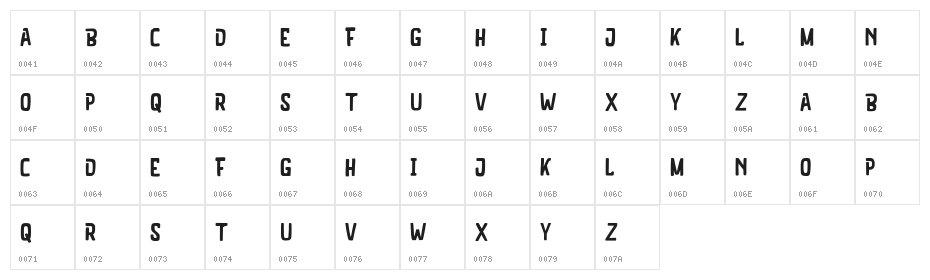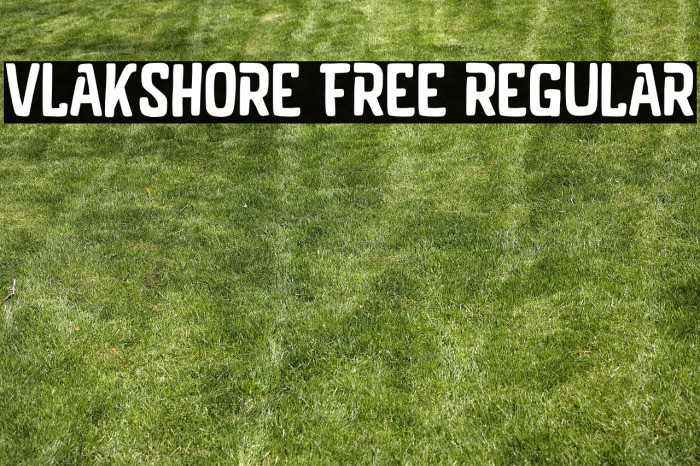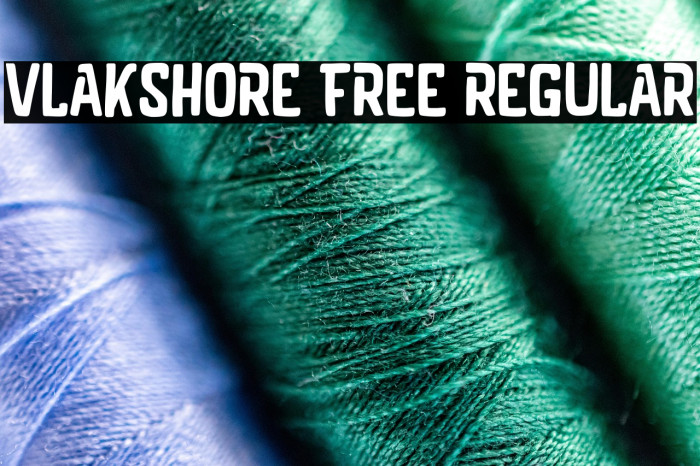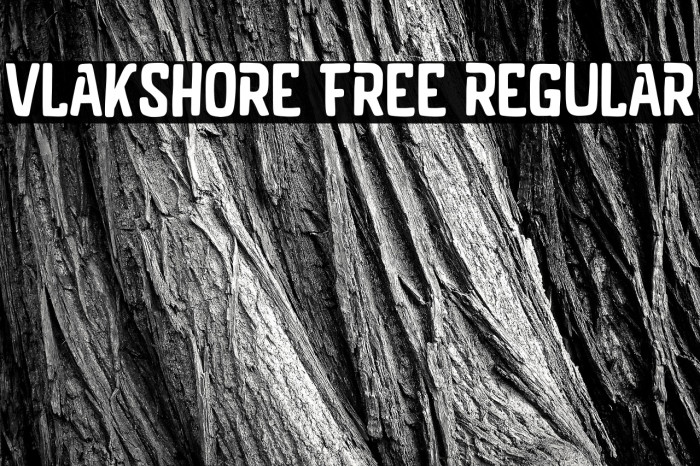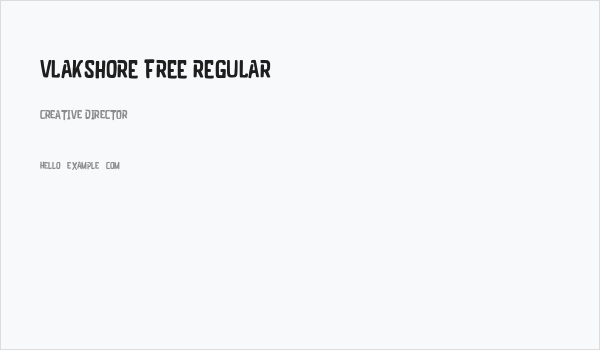
Vlakshore Free Regular Font
Vlakshore Free Regular Description
This font exhibits a bold and rounded style with a slightly condensed appearance. The characters are uniformly thick, giving it a strong and impactful presence. The rounded edges soften the overall look, making it approachable and friendly. The uppercase letters are consistent in height, and the spacing between characters is tight, enhancing its compact feel. This font is versatile, suitable for both modern and retro-themed designs, and can be used to draw attention without being overly aggressive.
| Proposed Projects | Ideal for branding, posters, headlines, and any design requiring a bold statement. |